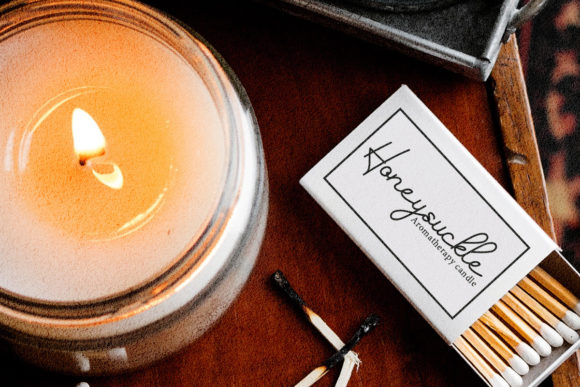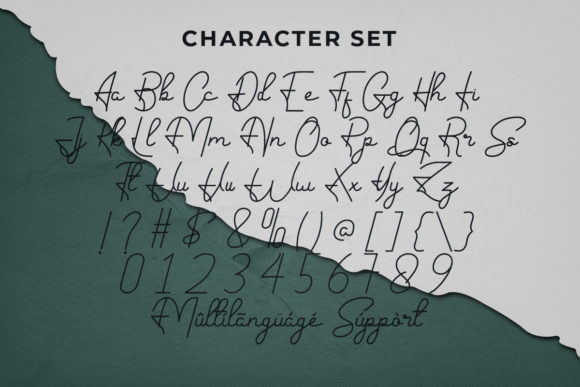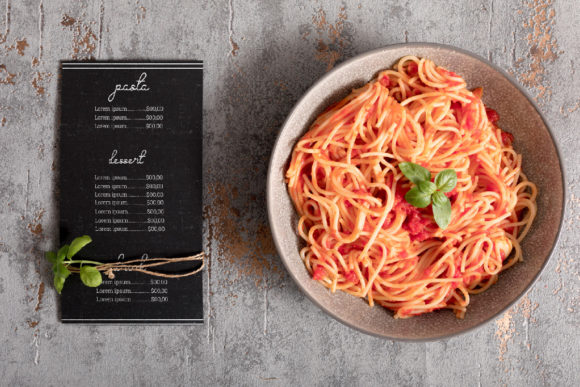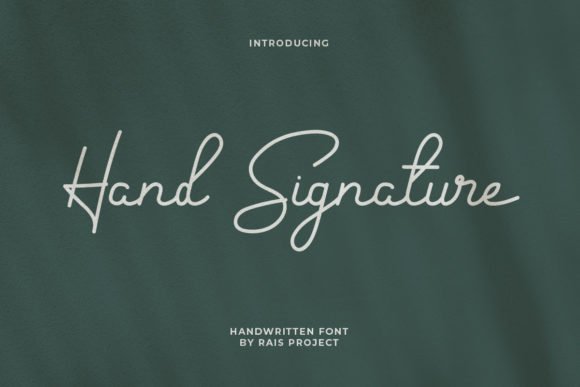
Introduction to Hand Signature Font
Hand Signature is a delicate, elegant and flowing handwritten font.
It has beautiful and well balanced characters and as a result, it matches a wide pool of designs Hand Signature is PUA encoded which means you can access all of the glyphs and swashes with ease.